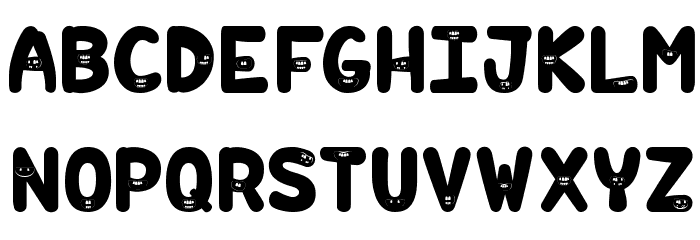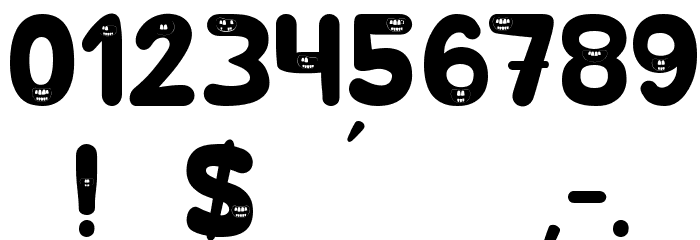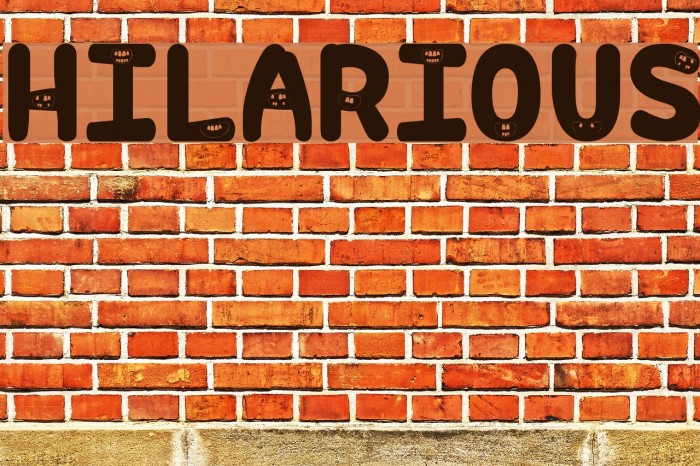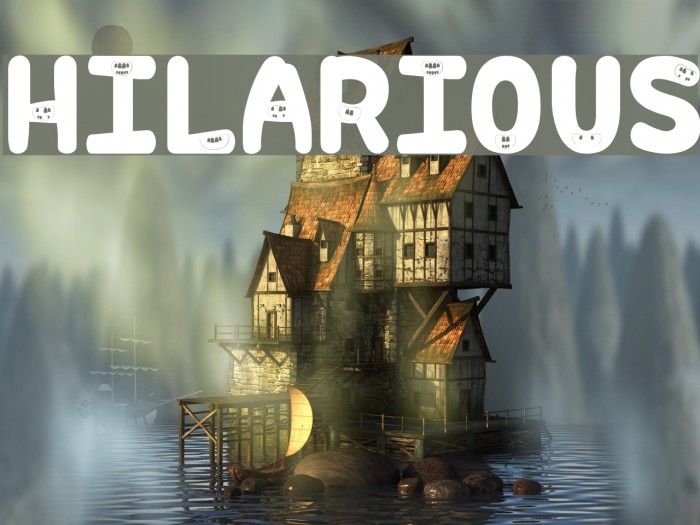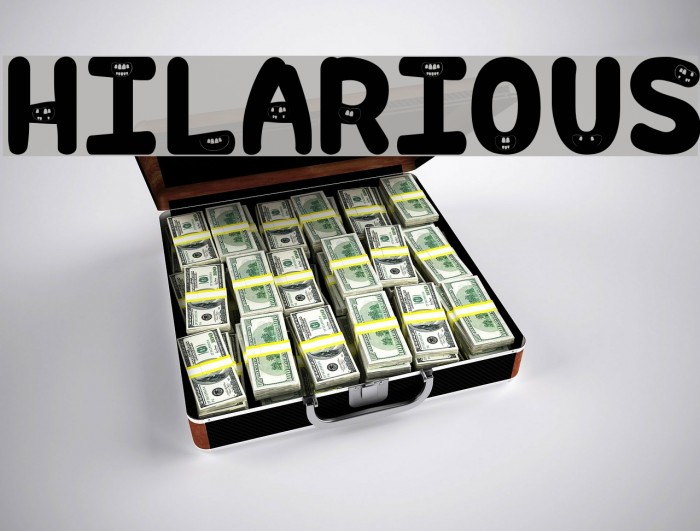
Hilarious Font
This playful and bold font features rounded, thick characters with a whimsical and cartoonish appearance. Each letter is designed with a consistent stroke width, giving it a uniform and cohesive look. The characters are slightly condensed, adding to the playful nature of the font. The numbers and special characters maintain the same style, ensuring a harmonious overall design. This font is perfect for projects that require a fun and engaging visual element, such as children's books, comic strips, or playful branding materials.
A playful, bold font with rounded, cartoonish characters.
- Proposed Projects: Ideal for children's books, comic strips, playful branding, and party invitations.
- Overall Style: Playful, Cartoonish